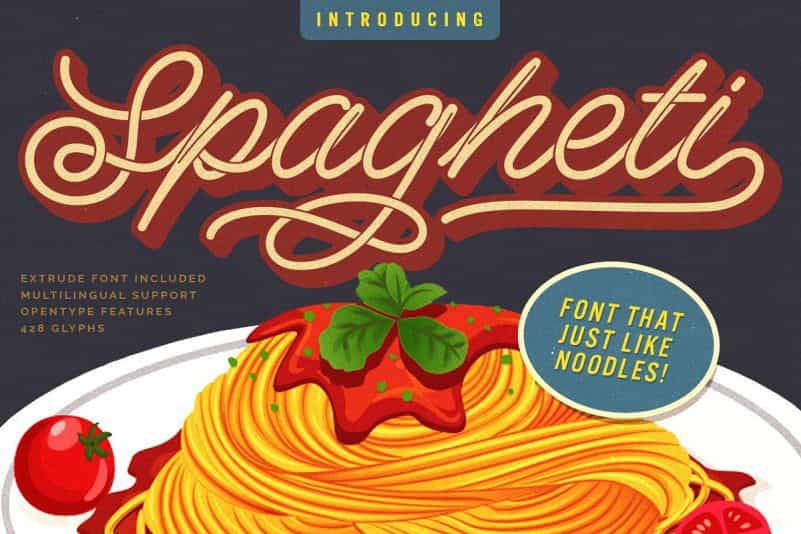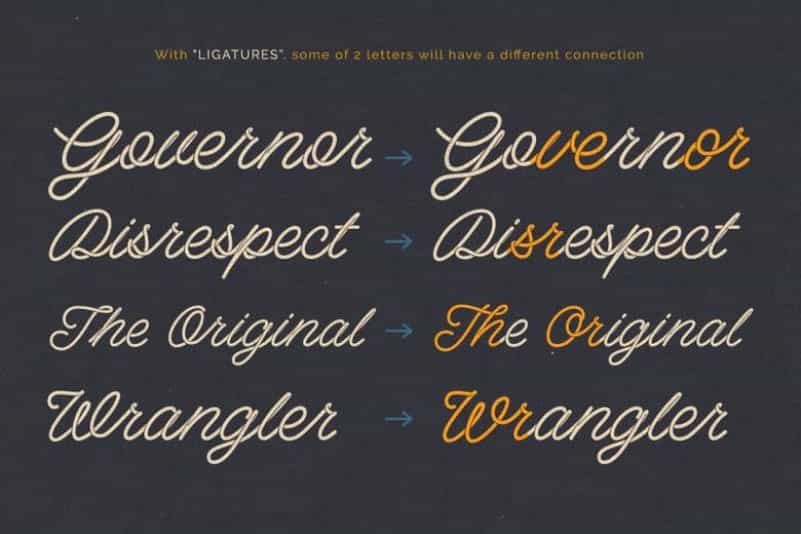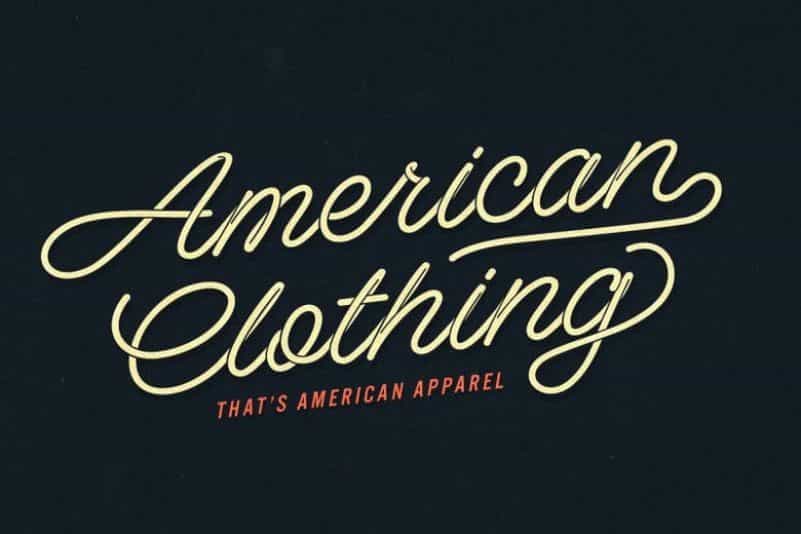
Spagheti Font the stenciled or the cut-off from this beautiful curve font will not only make your typesetting like noodles assembled in flow connected letters, but it will feel like a custom hand lettering as well.